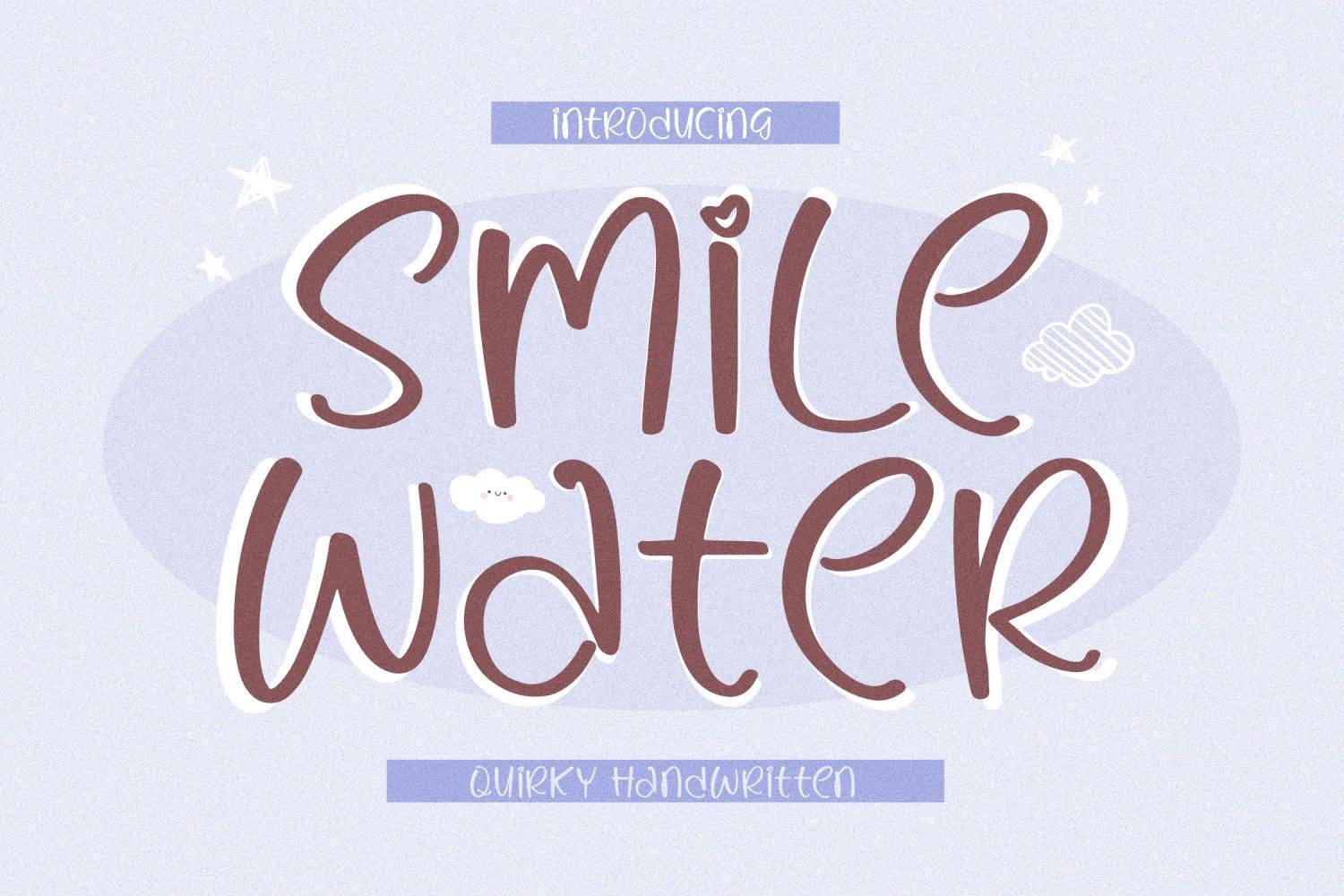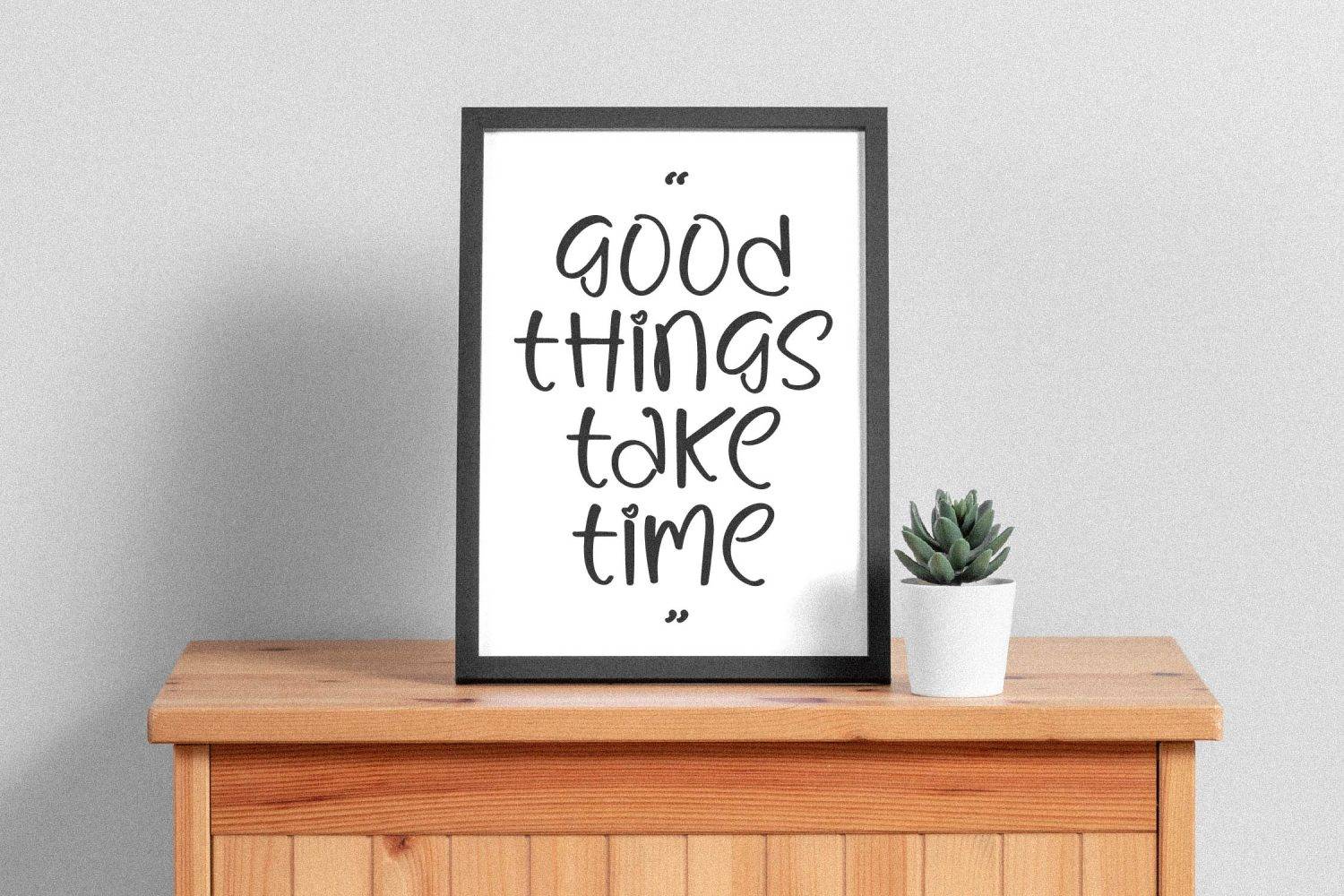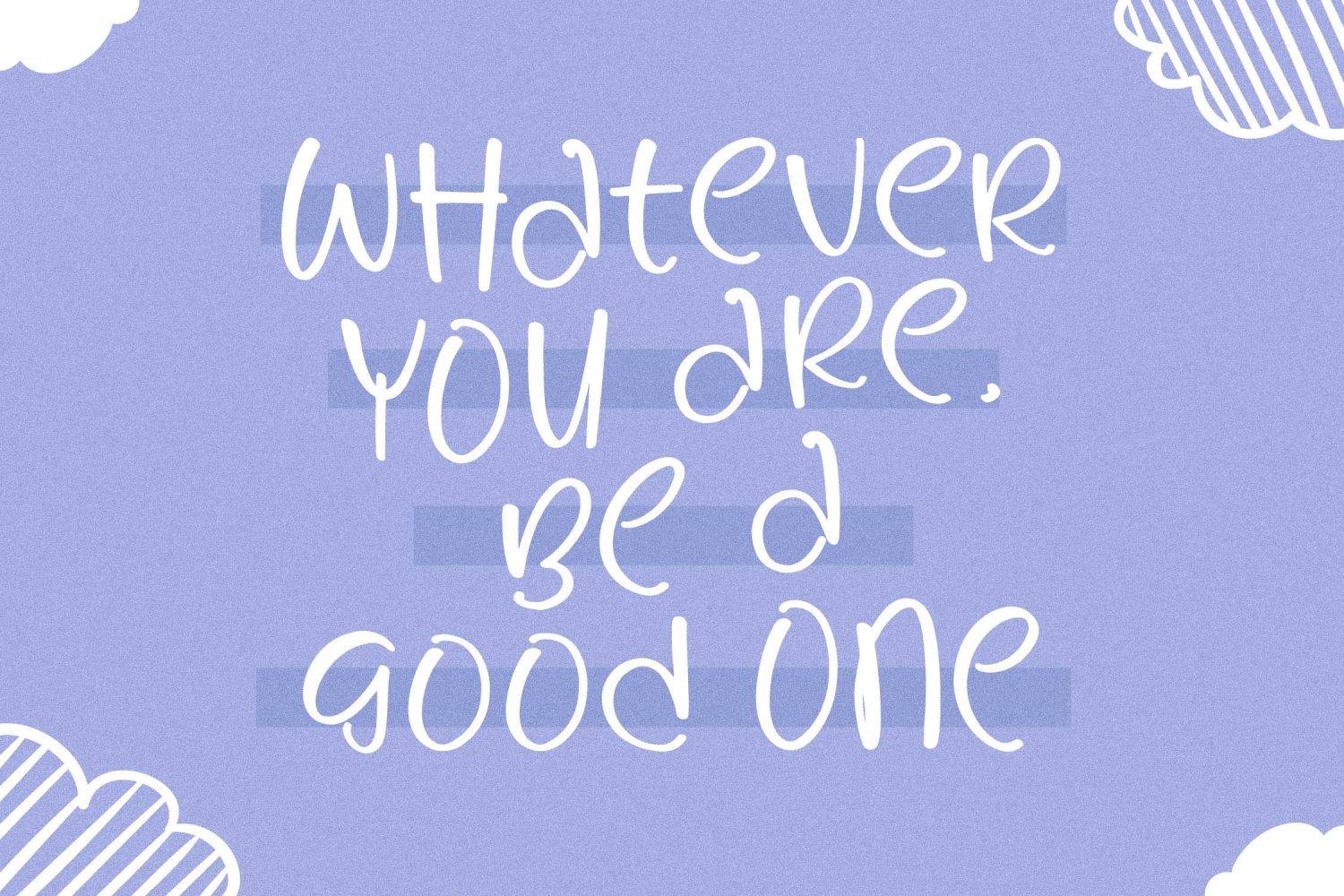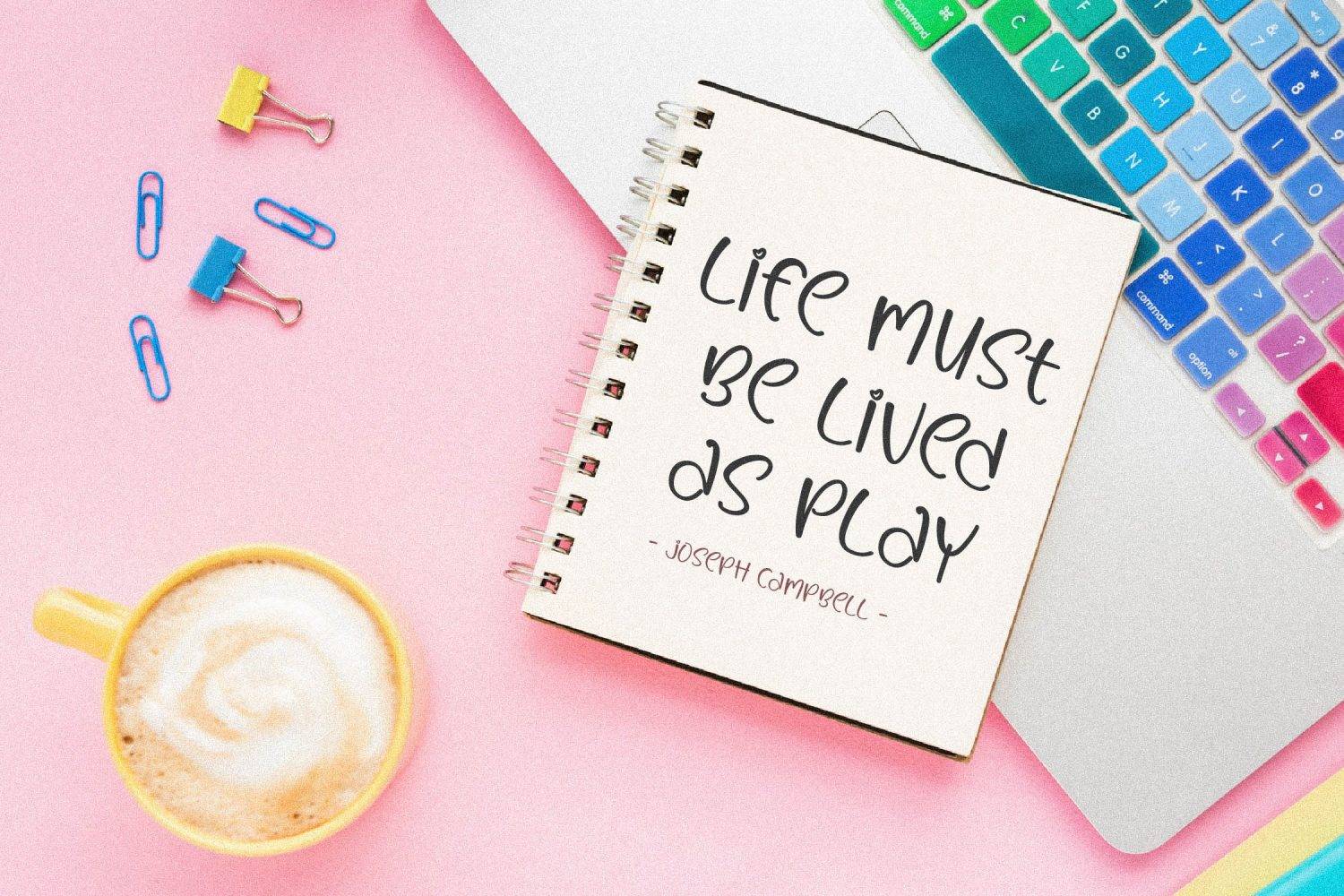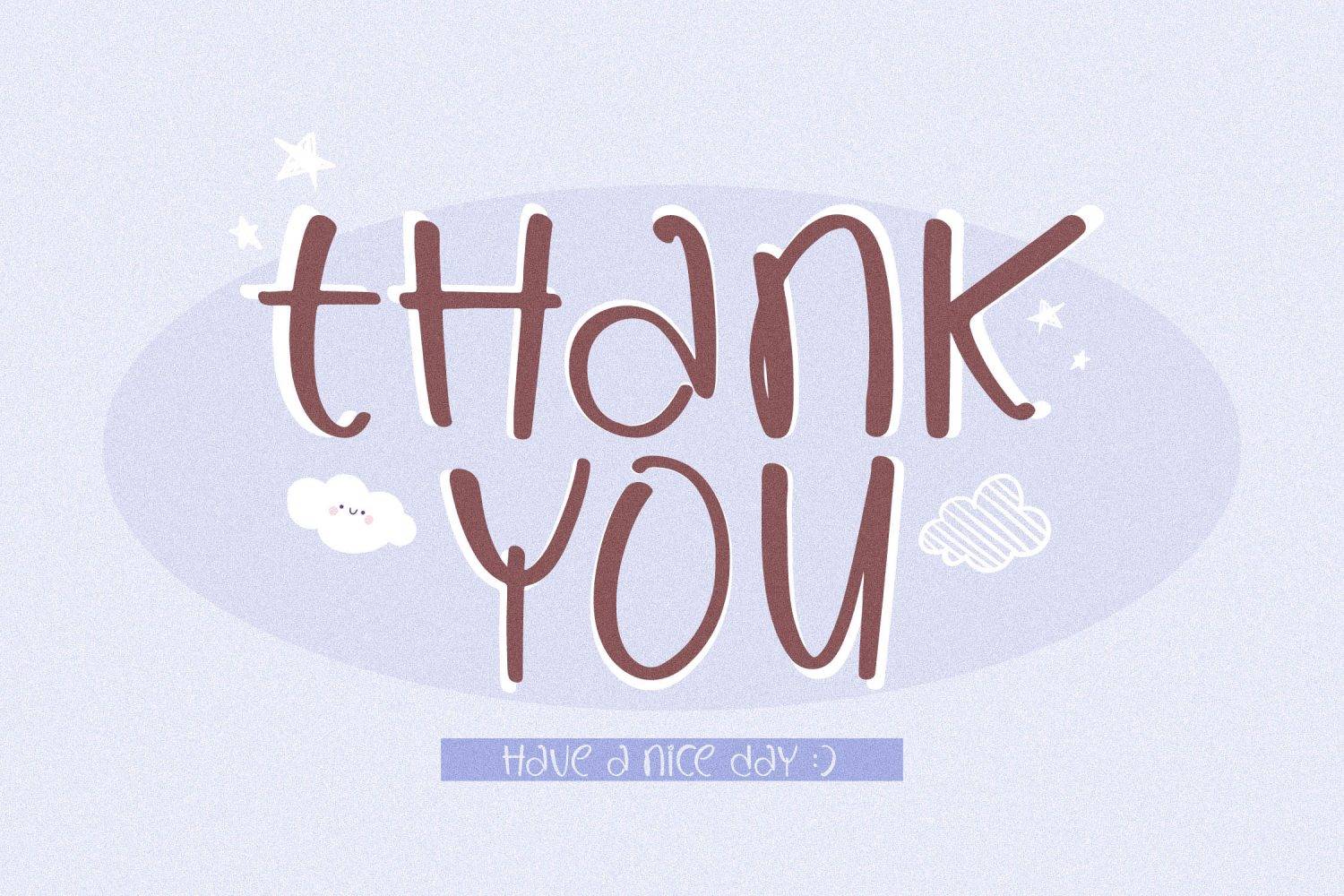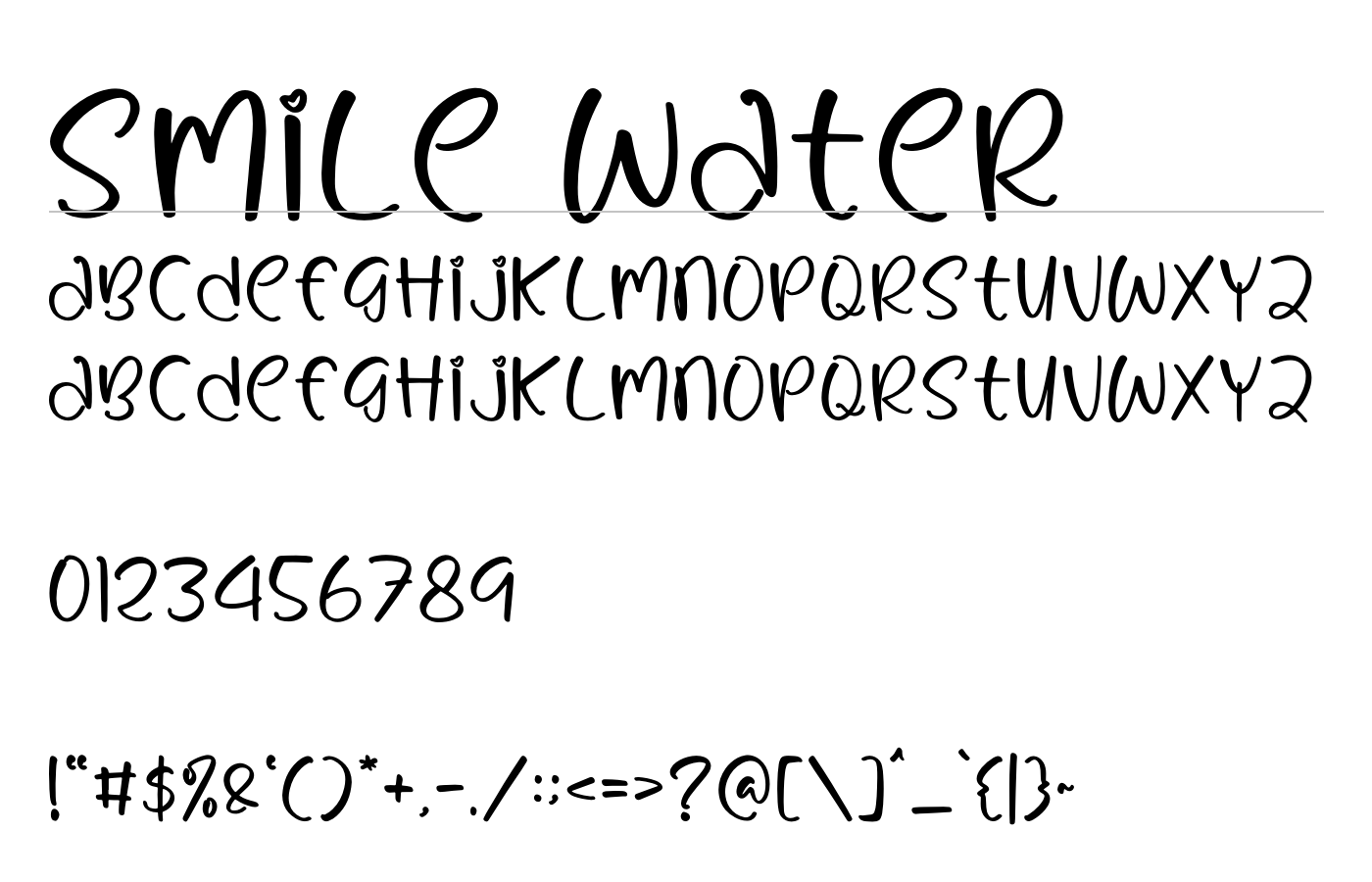
Smile Water is a playful handwritten sans serif font characterized by its light strokes, airy spacing, and whimsical details like heart-shaped dots on the i's. Its irregular, friendly letterforms and casual style make it perfect for fun, creative projects such as children's books, greeting cards, and informal branding. This font brings a warm, cheerful personality that works beautifully in headlines and decorative text where a personal, joyful touch is desired.
Smile Water Font
About Smile Water Font